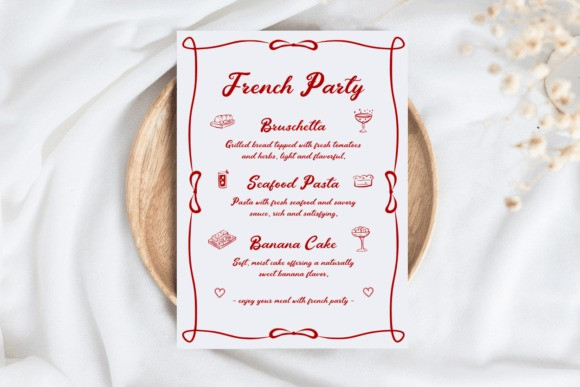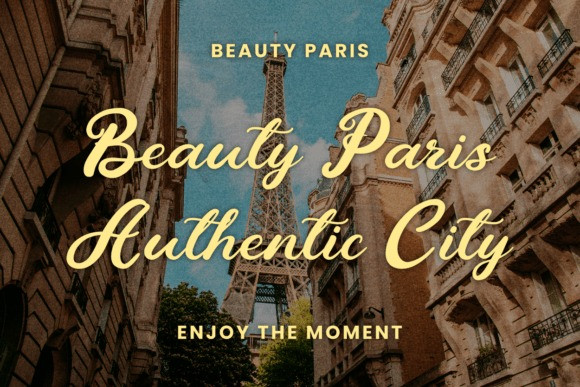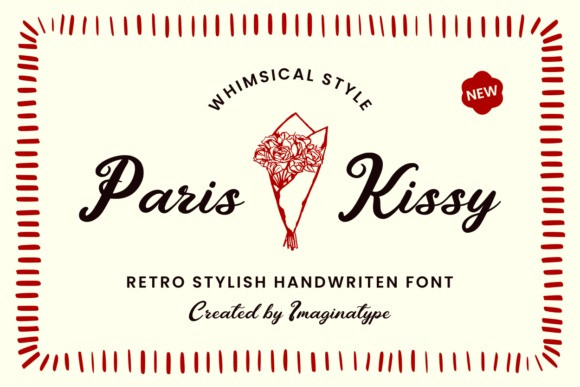
Paris Kissy Font a whimsical and retro-stylish handwritten font that adds an instant touch of charming sophistication to your designs.This beautiful cursive script is characterized by its flowing letterforms and a playfully bouncy baseline, capturing the authentic feel of chic, handwritten calligraphy. With its smooth, connected curves and warm, inviting energy, the Paris Kissy font offers a perfect balance of vintage nostalgia and modern playfulness. It brings a boutique, artisanal quality to any canvas it graces.It’s perfectly suited for romantic wedding invitations, chic cafe menus, boutique branding, enchanting travel photography overlays, and heartfelt quote posters.
Described as a “retro stylish handwritten font,” Paris Kissy manages to be both highly legible and beautifully expressive. Whether you are designing elegant packaging, a vibrant tourism campaign, or a stylish logo for a beauty brand, Paris Kissy provides a naturally sweet and authentic aesthetic that makes every word feel like a handwritten love letter. Features include a full character set, numbers, punctuation, and comprehensive multilingual support.